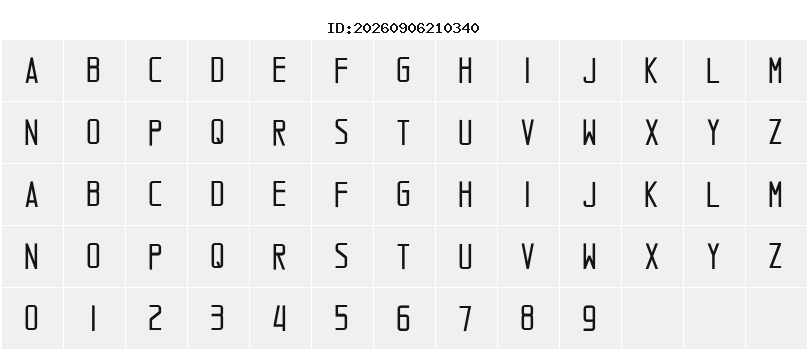
Uscita Preview
• Font Name: Uscita
• Full Font Name: Uscita
About Uscita.ttf
Uscita.ttf is a modern, elegant sans-serif font designed for ultimate readability and visual harmony. Perfect for branding, headlines, web design, and print materials.